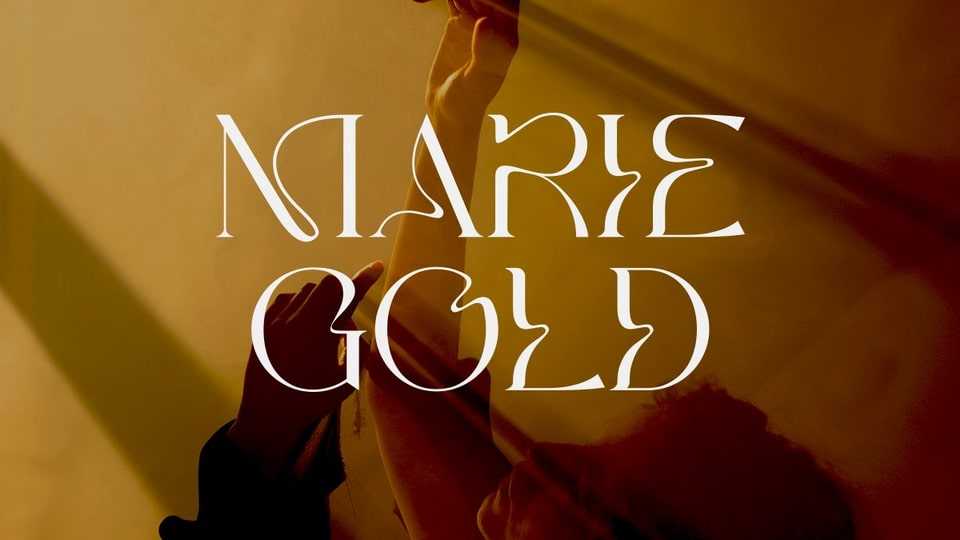
Download Mariegold font, a rich serif typeface with letters that seem modern with curvy and rotating letters. Perfect for branding, logos, invitations, mastheads, and more.